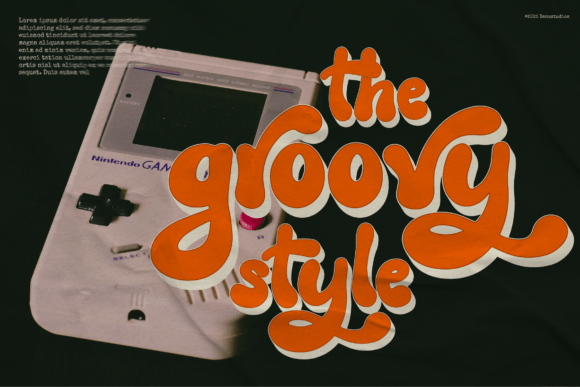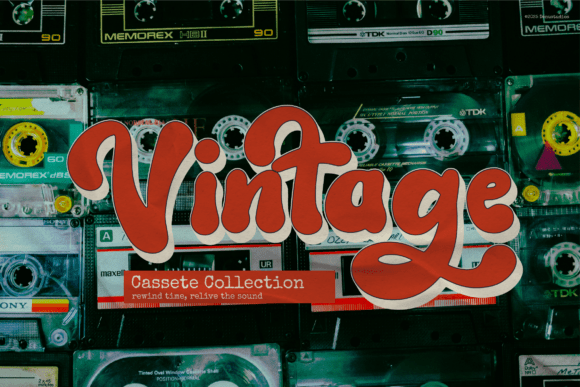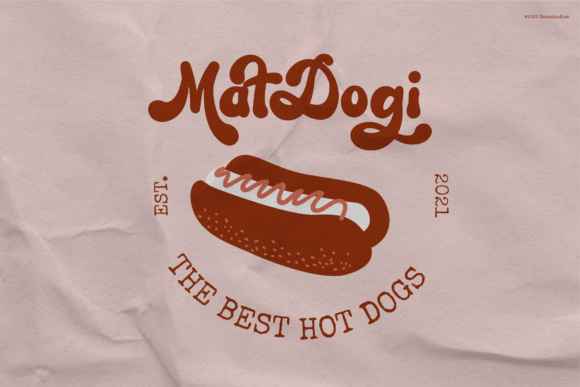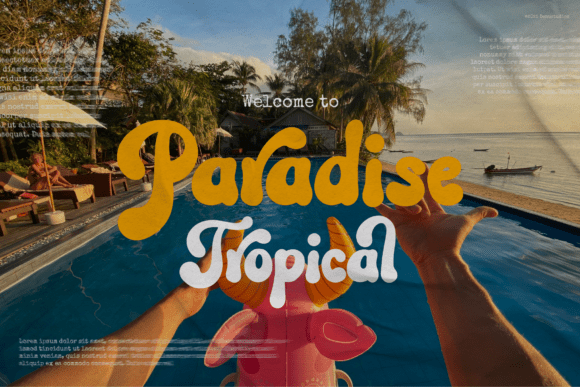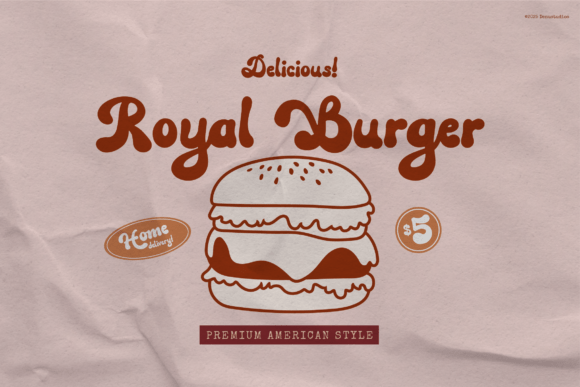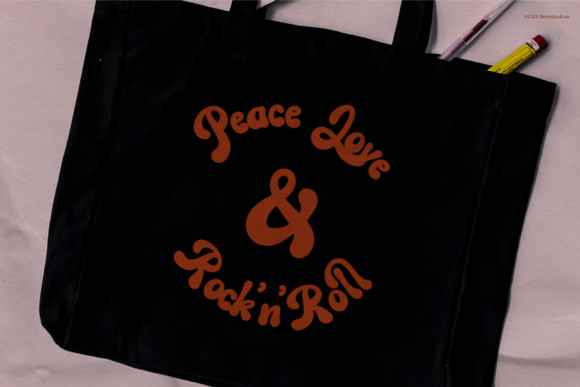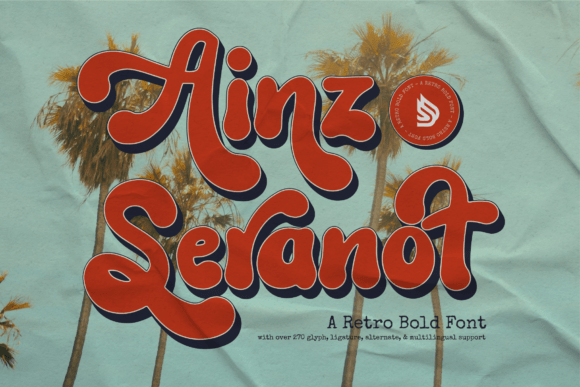
Bring Back the Bold, Groovy Vibes of the Past with Ainz Seranot Font
Are you tired of using the same old fonts for your design projects? Do you want to add a touch of nostalgia and retro charm to your branding, posters, packaging, and social media? Look no further than Ainz Seranot, a stunning retro font that blends vintage charm with modern versatility. In this article, we’ll dive into the features and benefits of Ainz Seranot, and explore how this font can elevate your designs to the next level.
A Retro Font with a Modern Twist
Ainz Seranot is a beautifully crafted font that takes inspiration from the bold, groovy vibes of the past. Its smooth, curvy letterforms, thick strokes, and stylish swashes evoke a sense of nostalgia and playfulness, making it perfect for designers and crafters who want to add a touch of retro charm to their work. But what sets Ainz Seranot apart is its modern versatility – this font is designed to work seamlessly in a variety of contexts, from branding and posters to packaging and social media.
Key Features of Ainz Seranot
So what makes Ainz Seranot so special? Here are just a few of its key features:
- Over 270 glyphs: Ainz Seranot features a vast character set, including uppercase and lowercase letters, numbers, punctuation marks, and special characters.
- Ligatures and alternates: The font includes ligatures and alternates, allowing you to create unique and creative typographic combinations.
- Multilingual support: Ainz Seranot supports multiple languages, making it a great choice for designers who work with international clients or want to create multilingual content.
- Stylish swashes: The font features stylish swashes that add a touch of elegance and sophistication to your designs.
- Thick strokes and smooth curves: Ainz Seranot’s thick strokes and smooth curves give it a bold, retro look that’s perfect for making a statement.
Use Cases for Ainz Seranot
So how can you use Ainz Seranot in your design projects? Here are just a few ideas to get you started:
- Branding: Use Ainz Seranot to create bold, eye-catching logos and brand identities that stand out from the crowd.
- Posters and flyers: Add a touch of retro charm to your posters and flyers with Ainz Seranot’s smooth curves and thick strokes.
- Packaging: Use Ainz Seranot to create eye-catching packaging designs that pop off the shelf.
- Social media: Add a touch of personality to your social media graphics with Ainz Seranot’s stylish swashes and ligatures.
Why Choose Ainz Seranot?
With so many fonts on the market, why choose Ainz Seranot? Here are just a few reasons why this font stands out:
- Unique and creative: Ainz Seranot’s bold, retro look is sure to turn heads and make your designs stand out.
- Versatile: This font works seamlessly in a variety of contexts, from branding and posters to packaging and social media.
- High-quality: This font is professionally crafted to ensure high-quality results, every time.
If you’re looking for a font that will add a touch of nostalgia and retro charm to your design projects, look no further than Ainz Seranot. With its smooth curves, thick strokes, and stylish swashes, this font is perfect for designers and crafters who want to create bold, eye-catching designs that stand out from the crowd. Whether you’re working on branding, posters, packaging, or social media, Ainz Seranot is the perfect choice for adding a touch of retro flair to your work.